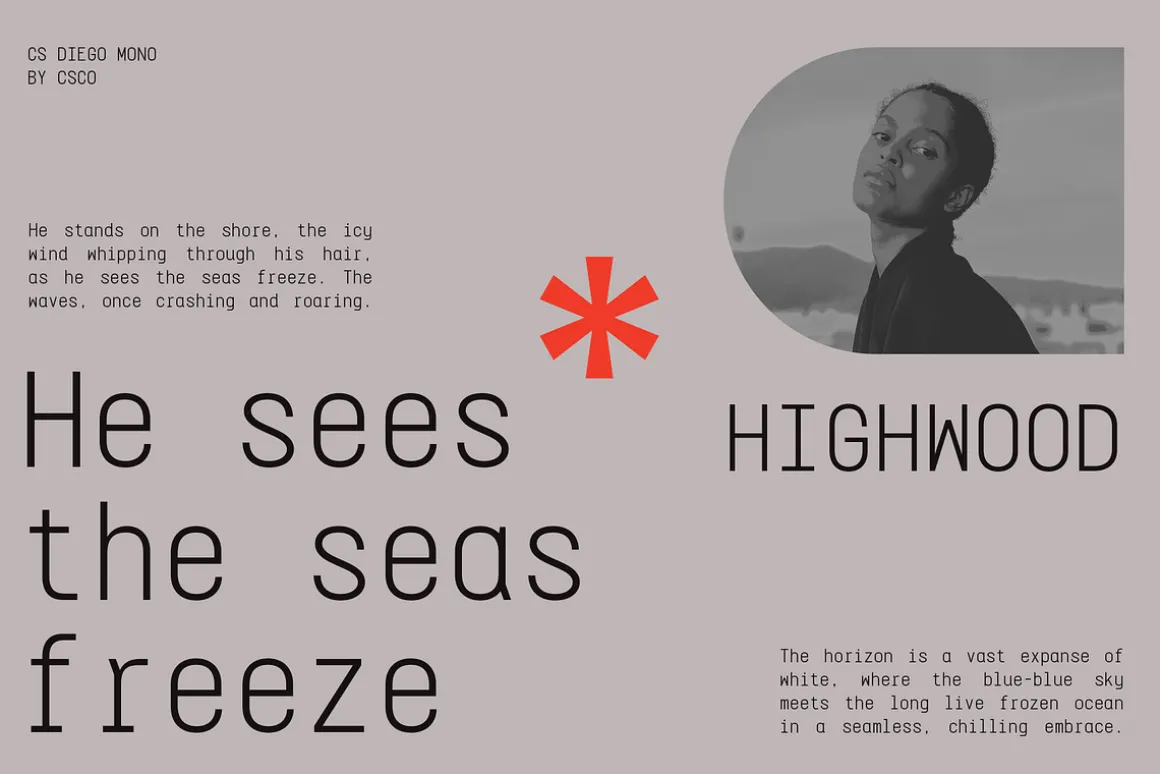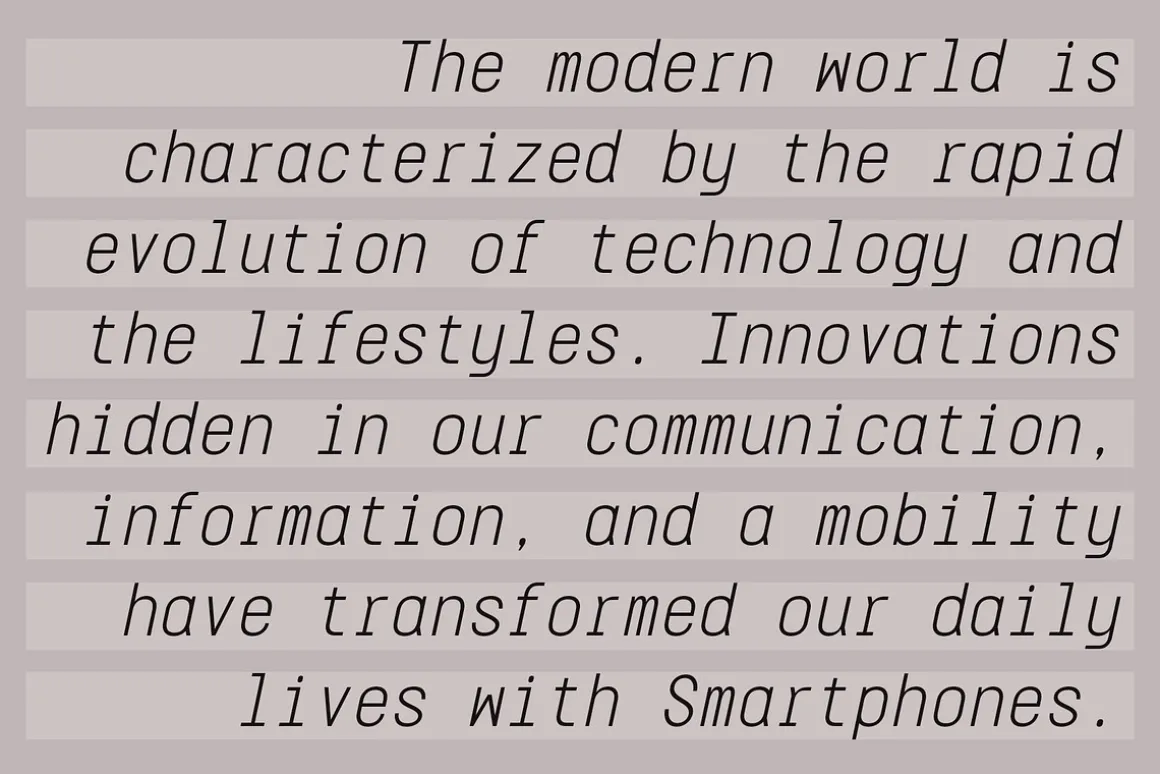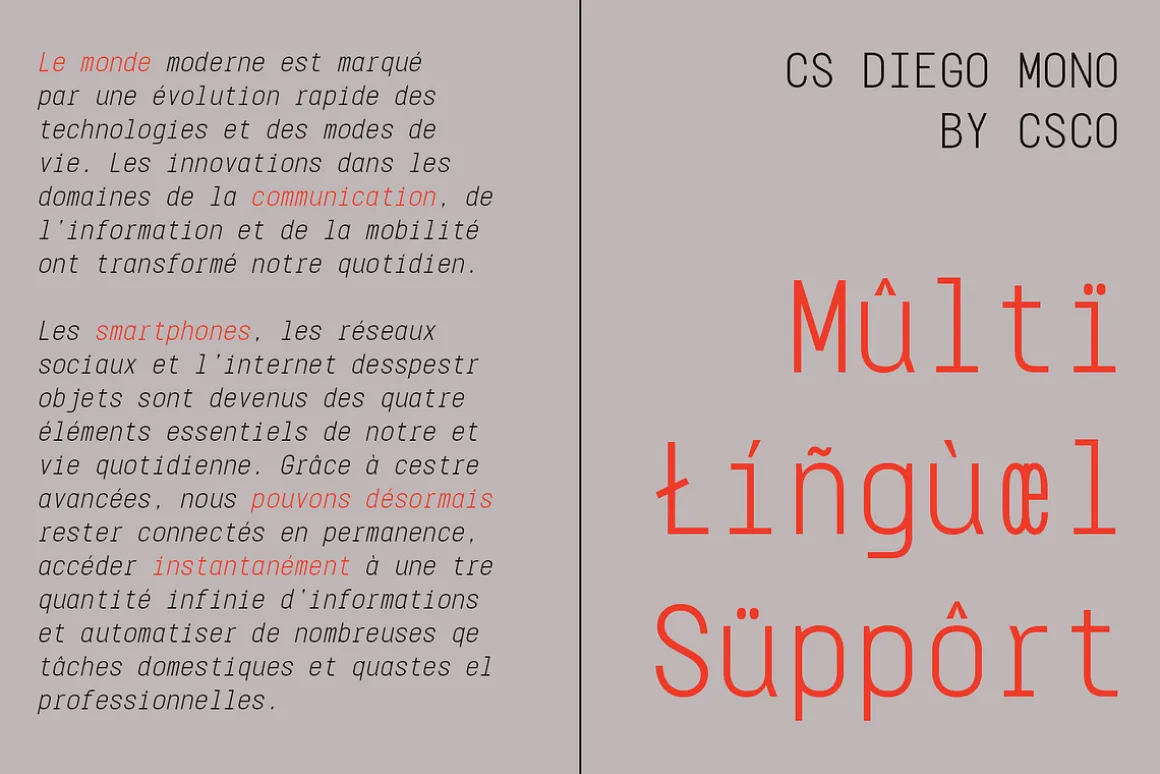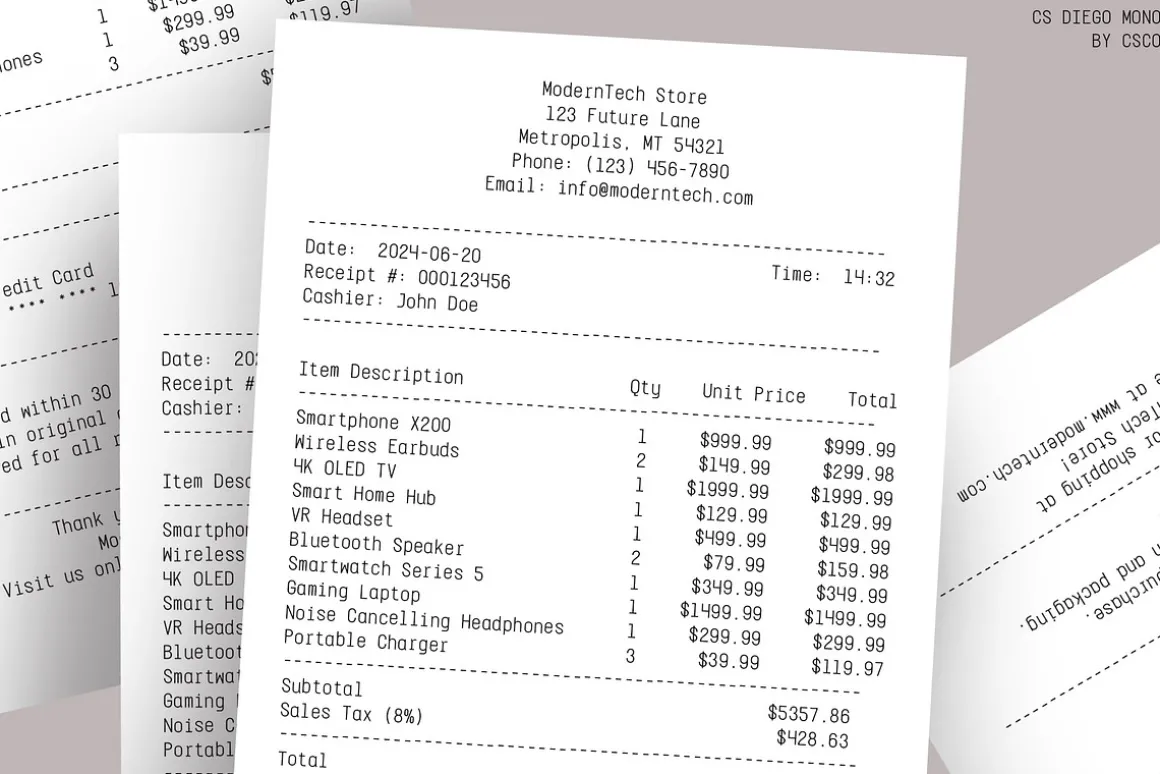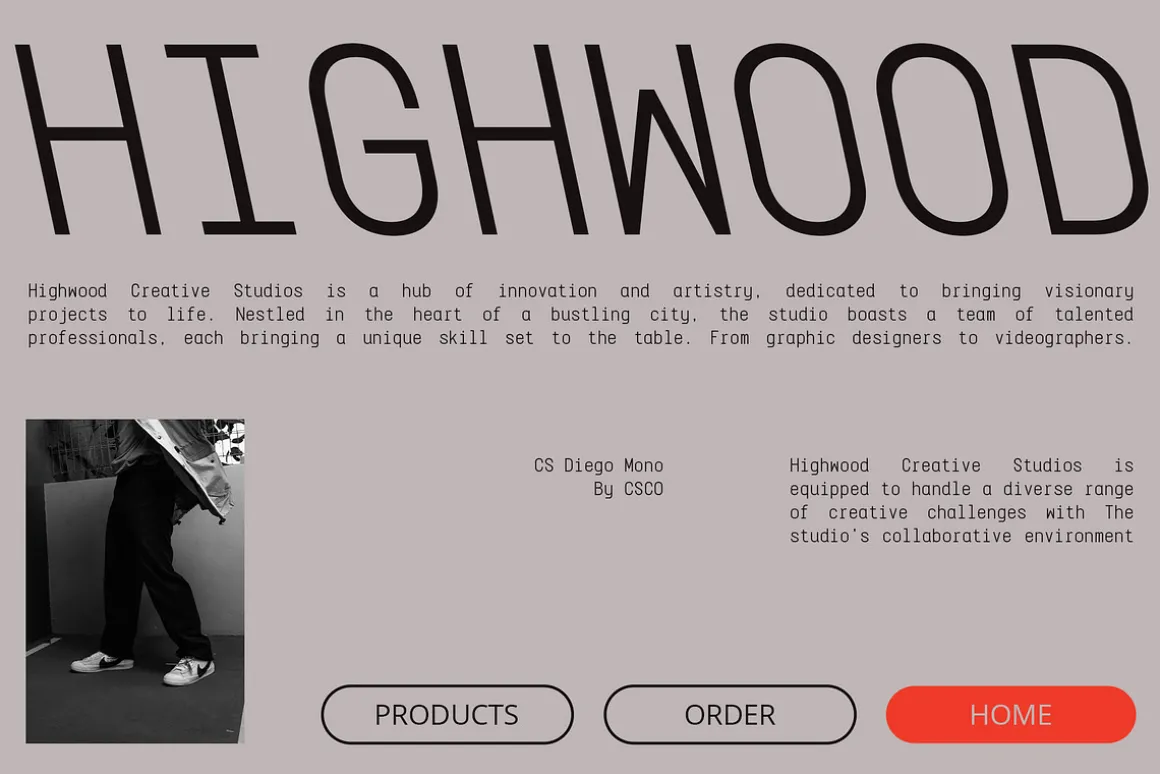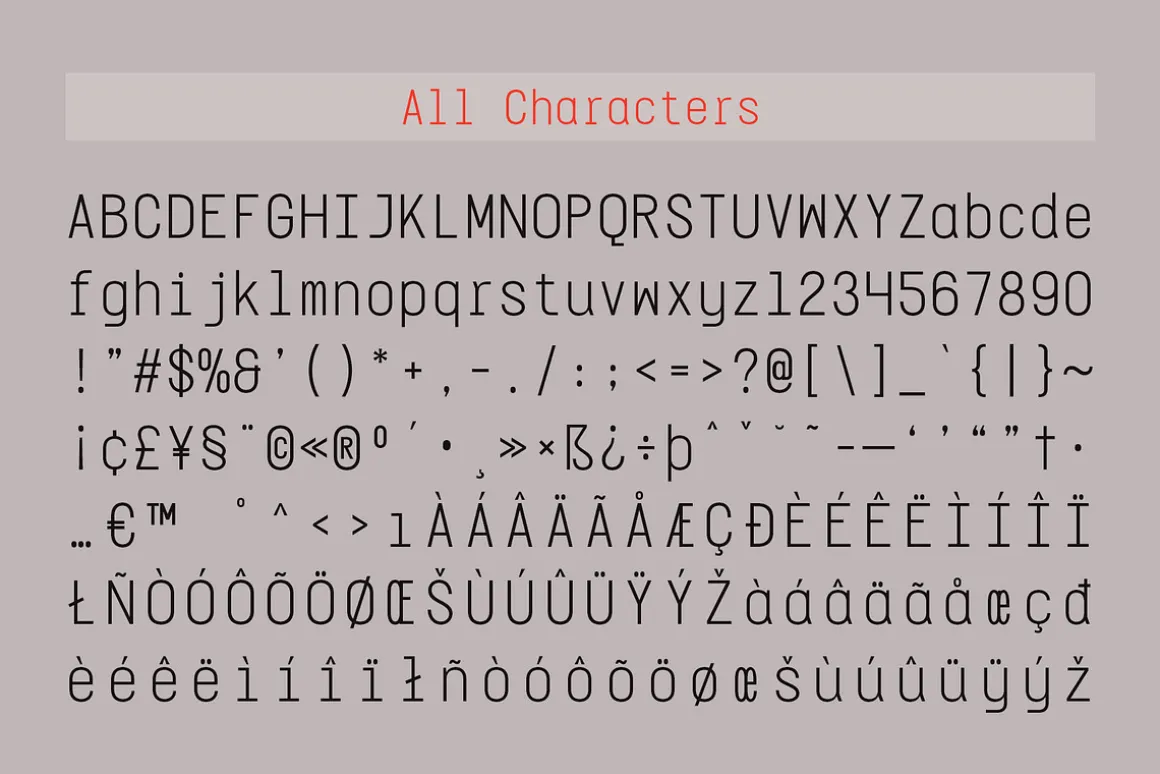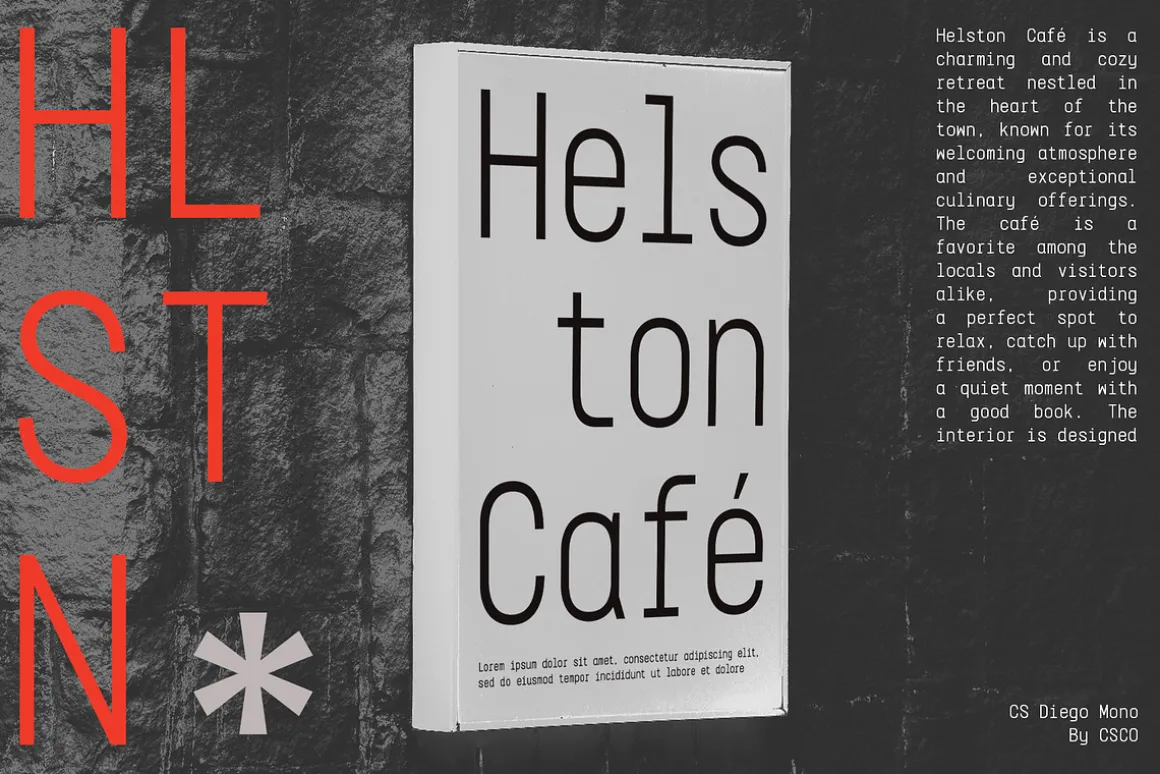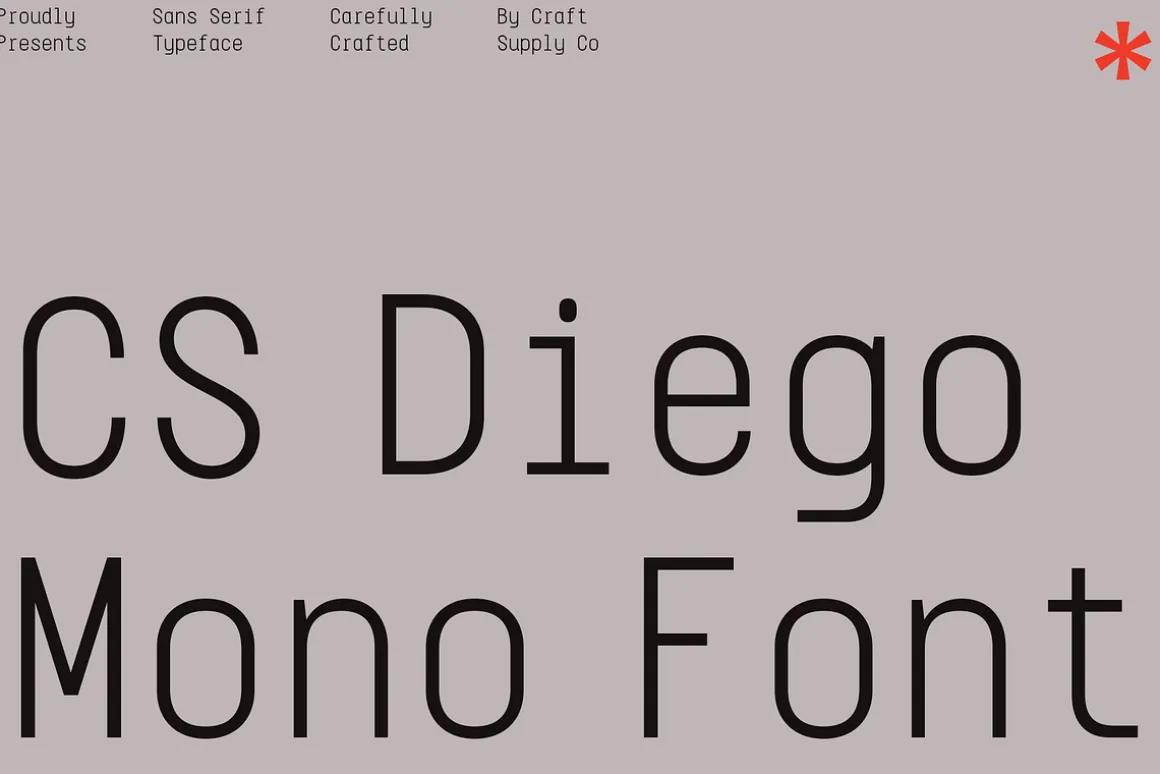
CS Diego Mono: The Monospace Sans Serif for Readable Code
IntroductionCS Diego Mono is a modern sans-serif typeface that features a monospace design, ensuring consistent character width and a clean, readable appearance. Ideal for programming code or any text requiring a consistent and easily readable style.
Consistent Character WidthThe monospace design of this CS Mono font ensures that each character occupies the same amount of horizontal space, making it ideal for coding and any application where text alignment is crucial. This consistency enhances readability, especially in technical contexts.
Clean Sans-Serif DesignThe sans-serif design of this CS Mono font adds a modern and clean look to the typeface. The absence of serifs ensures that the characters are clear and easy to distinguish, even at small sizes or in low-resolution environments.
Ideal for Programming and Technical TextThis CS Mono font is perfectly suited for programming code and any technical text that requires a consistent and readable appearance. Its monospace design ensures that code snippets maintain their formatting and readability, making it an excellent choice for developers and technical writers.
Versatile and ModernBeyond programming, this CS Mono font is a versatile font that can be used for various design projects. Its modern, clean aesthetic makes it suitable for branding, user interfaces, and any application where a contemporary, readable font is desired.